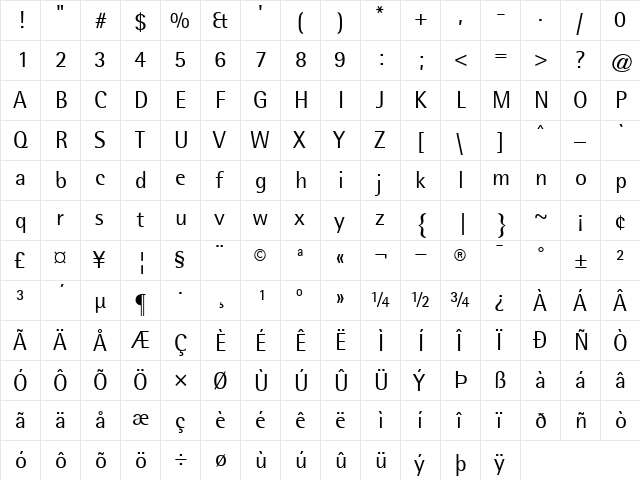
RotisSemiSans55 Roman
Design Context for RotisSemiSans55 Typeface
RotisSemiSans55 is a composed and adaptable typeface that performs quietly and consistently across a wide range of design contexts.